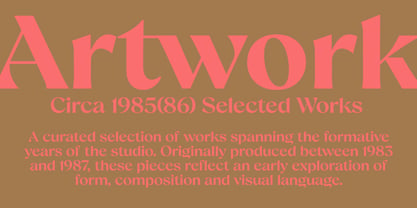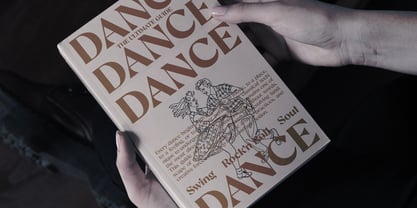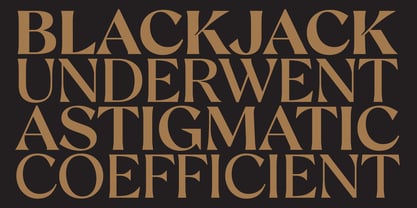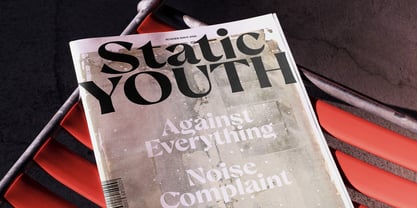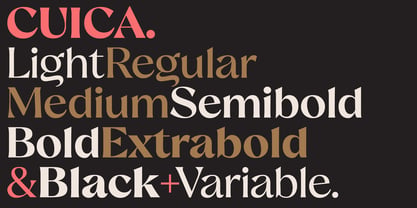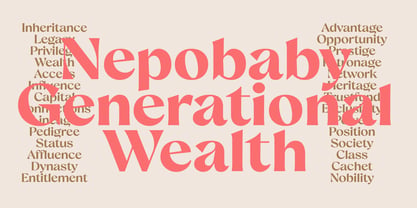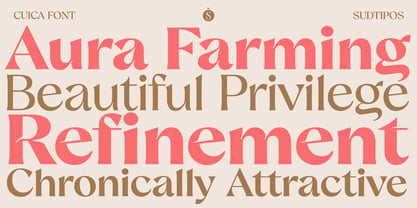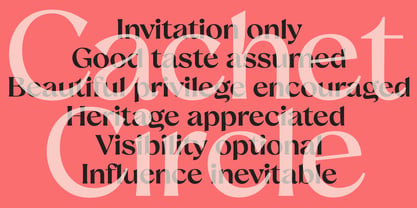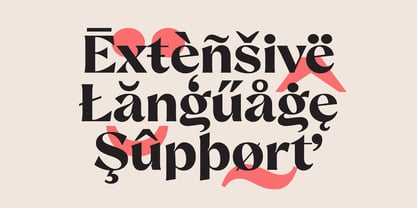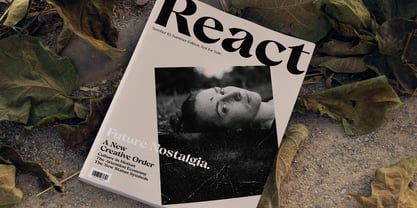
Cuica
Die Schriftfamilie Cuica wurde von Alejandro Paul entworfen und von Sudtipos veröffentlicht. Cuica enthält 8 Stile und Familienpaketoptionen. Mehr über diese Familie
Cuica is a contemporary serif shaped by glamour, confidence and a distinctly graphic sense of presence.
Generous, sculptural curves meet sharp cuts and unexpected details, creating a rhythm that feels refined yet expressive. Its foundations are classical, but its proportions and gestures belong firmly to the present, giving the typeface a voice that is elegant without becoming conventional and charismatic without relying on excess.
At display sizes, Cuica reveals its theatrical side: bold, magnetic and unmistakably distinctive. In more restrained settings, the same forms create a sophisticated editorial texture, allowing the family to move naturally between visual impact and quiet refinement.
The family includes seven weights and a variable font, providing a broad range of expression while preserving a consistent typographic identity. Selected glyphs are available with and without ink traps, offering subtle control over its tone, from sharper and more graphic to smoother and more polished.
Designed for branding, editorial design, fashion, beauty, hospitality, packaging and cultural projects, Cuica brings glamour and character to language—not as decoration, but as a carefully constructed typographic attitude.
Designer: Alejandro Paul
Foundry: Sudtipos